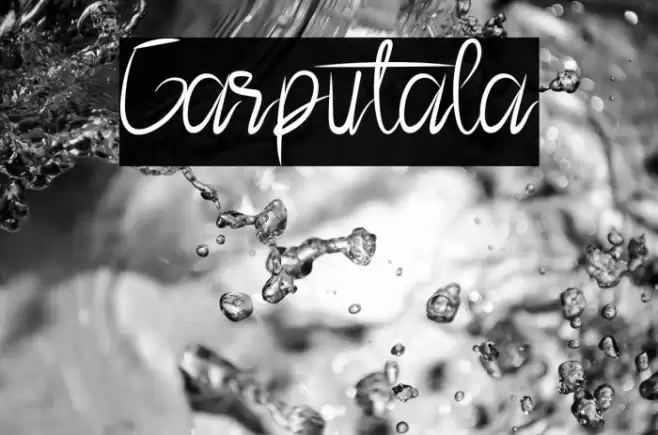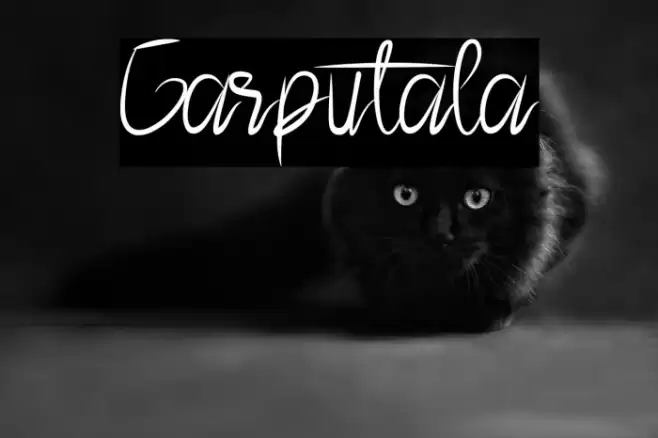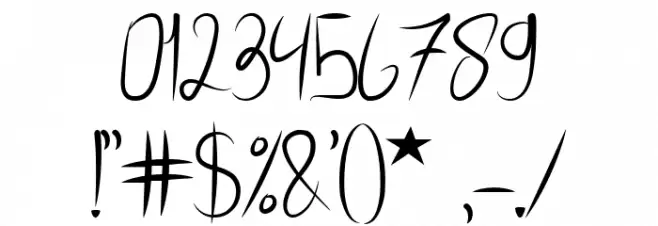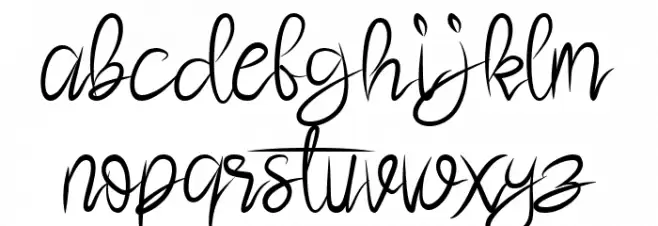
Garputala Font
Garputala Description
This font features a dynamic and flowing script style, characterized by its elegant and fluid letterforms. The uppercase letters are bold and sweeping, with a sense of movement and grace. The lowercase letters maintain a consistent flow, enhancing the overall cursive aesthetic. Numbers and special characters are designed with the same attention to detail, ensuring a cohesive look throughout. The font's strokes vary in thickness, adding a lively contrast that enhances readability while maintaining a decorative flair. Its artistic style makes it suitable for creative and expressive projects.
A dynamic and flowing script font with elegant, fluid letterforms and lively contrast from Regular fonts.
- Proposed Projects: Ideal for wedding invitations, greeting cards, branding, and artistic posters.
- Use Case: Logos, Invitations, Artistic Projects